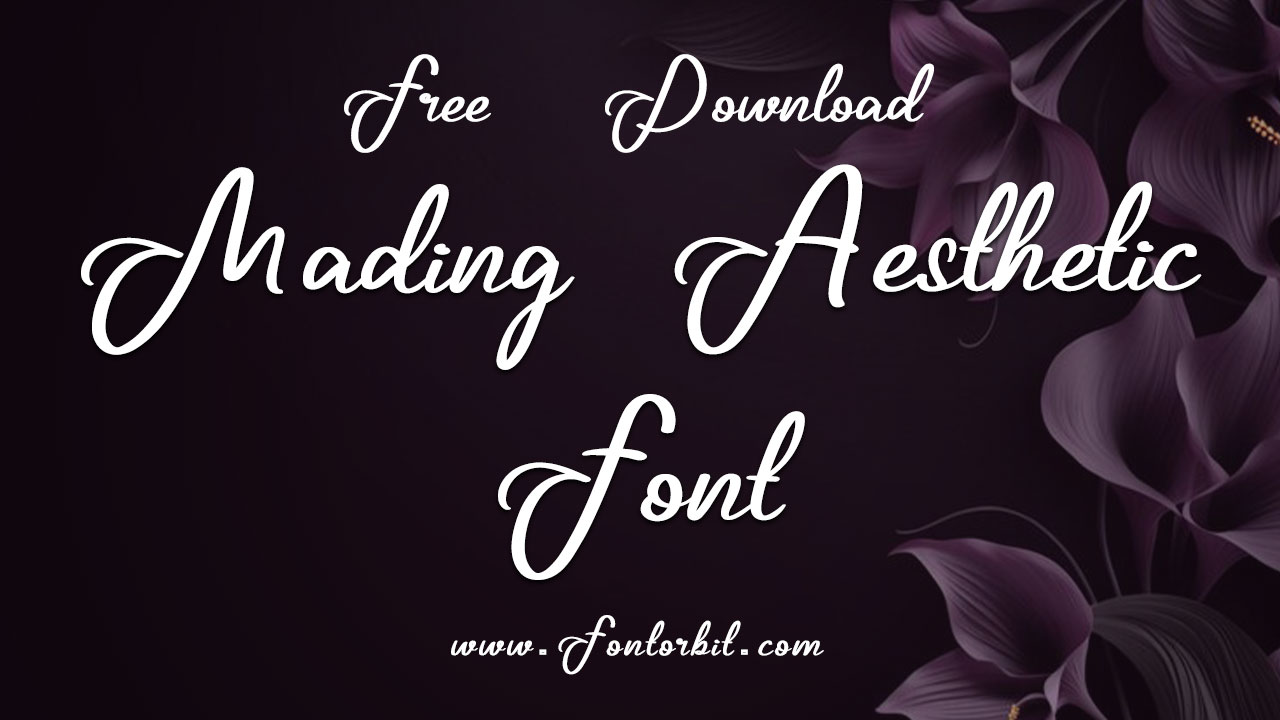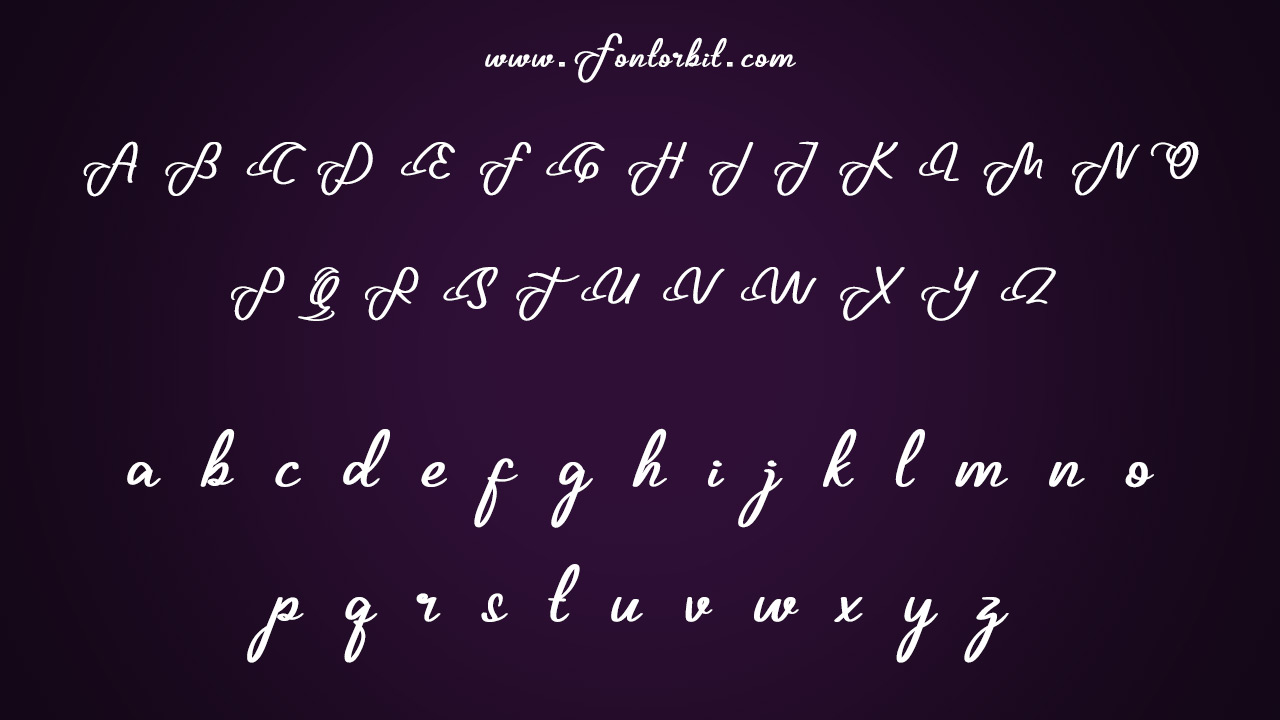
Mading Aesthetic Font, designed by Juan Pablo del Peral and published by VinType Studio, is a sophisticated calligraphy font perfect for various professional and creative applications.
With its elegant letterforms and versatile features, this font is available for free personal use and adds a touch of refinement to any project.
Type Of The Mading Aesthetic Font
a. Mading Demo Regular
The Mading Aesthetic Font is a calligraphy typeface available in OTF and TTF formats. It includes a full set of uppercase and lowercase characters, numerals, punctuation, and ligatures, providing a comprehensive range for elegant design needs.
- Weddings
- Florist Branding
- Sales Marketing
- Professional Documents
- Dentistry Branding
- Real Estate
- Music and Videography Projects
The Mading Aesthetic Font Found In Use
Mading Aesthetic Font is commonly used in various design contexts for its refined and elegant style. It is ideal for wedding invitations, branding materials, and professional documents, enhancing visual appeal with its graceful calligraphic features. It also excels in marketing materials and creative projects, adding a sophisticated touch.
Mading Aesthetic Font, crafted by Juan Pablo del Peral, offers an elegant and versatile calligraphy style suitable for a wide range of professional and creative uses.
2.What Are The Best Examples Of Designs Using Mading Aesthetic Font?
Mading Aesthetic Font excels in wedding invitations, branding materials, elegant flyers, and luxury product packaging, showcasing its refined and sophisticated style.
3.What Are The Common Mistakes To Avoid When Using Mading Aesthetic Font?
Avoid using it in small sizes, overloading text, and pairing it with overly ornate fonts. Ensure adequate spacing and contrast for readability.
4.What Are The Best Practices For Typography Using Mading Aesthetic Font?
Use Mading for headings or focal points, pair with clean sans-serifs for body text, and maintain ample line spacing and margins for readability.
5.How To Choose The Right Mading Aesthetic Font For A Project?
Consider Mading’s elegance and sophistication for formal or luxury projects. Ensure it aligns with the design’s tone and complements other typography used.